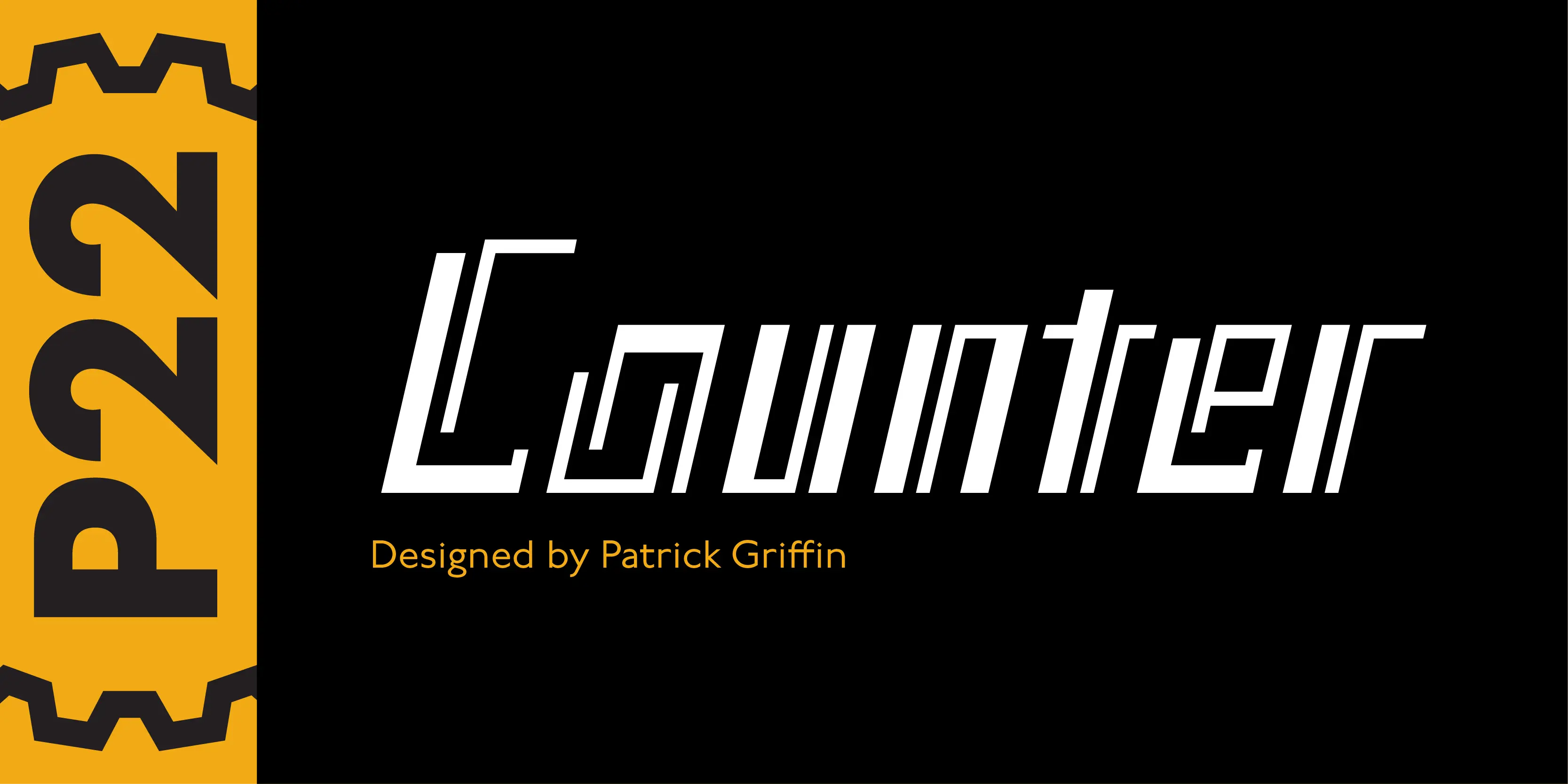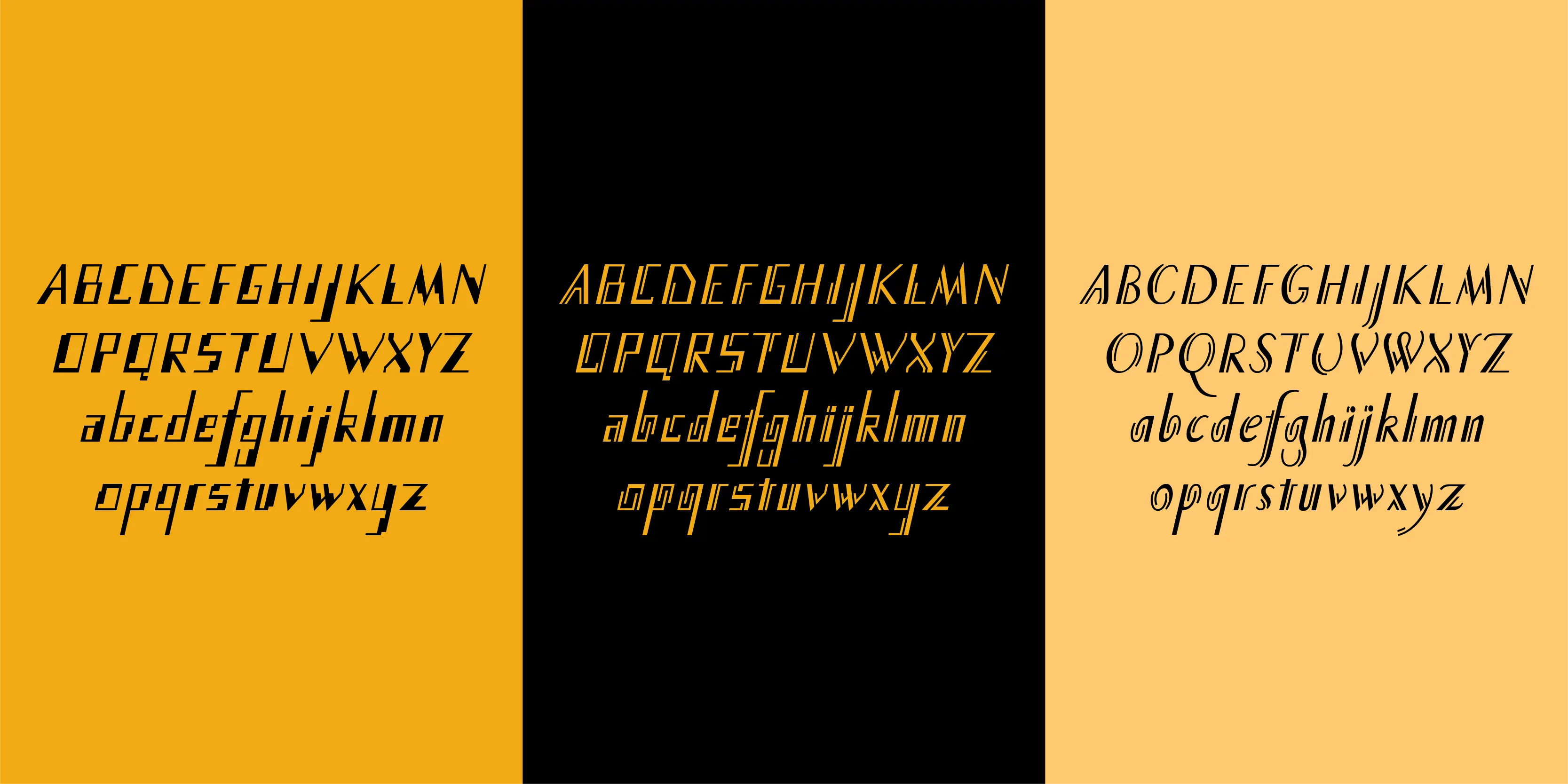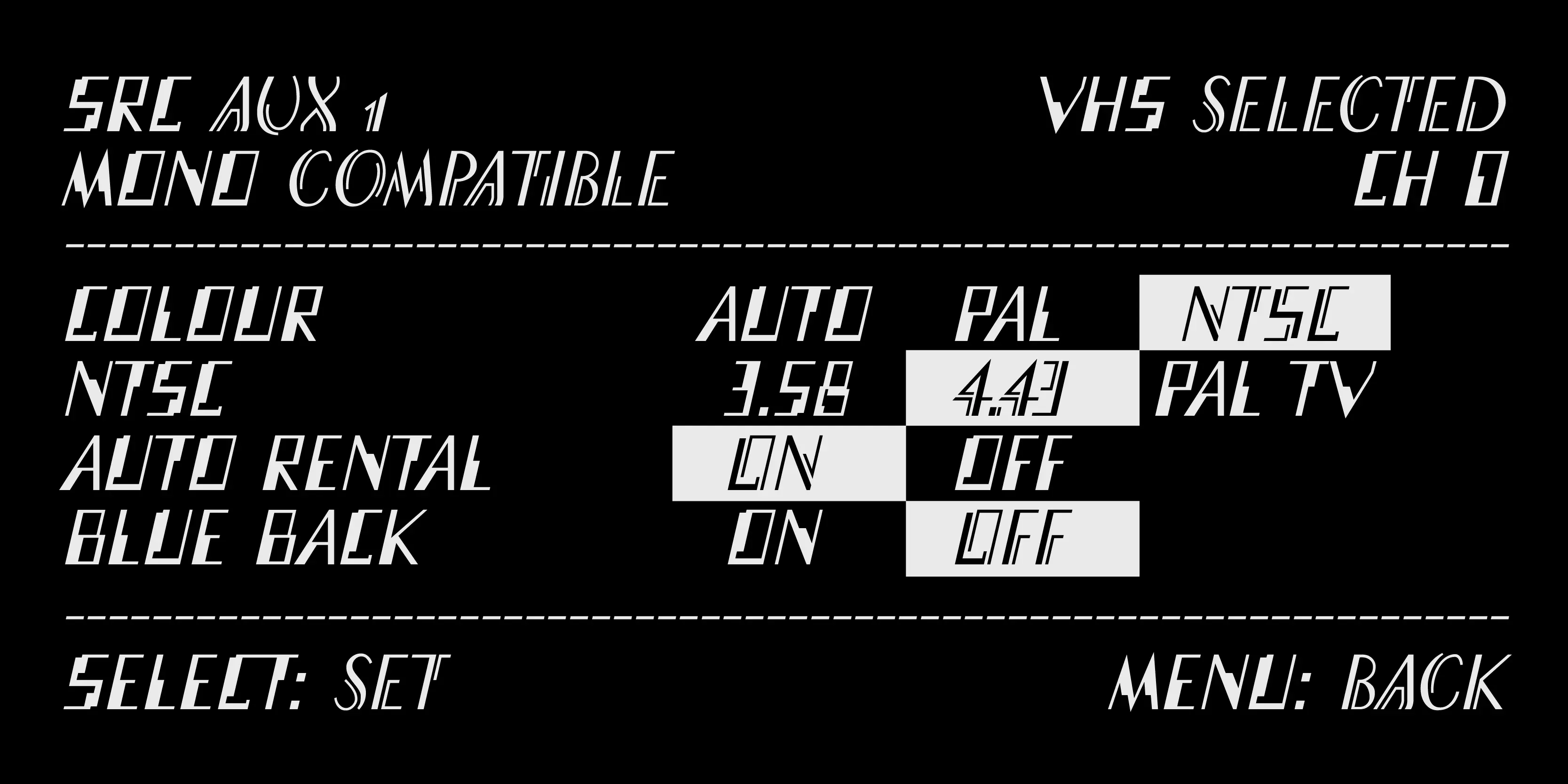
Counter Font Family
• Counter Cursive
• Counter Hack
• Counter Line
Counter
Designed by Canada Type principal Patrick Griffin, P22 Counter is a very geometric font based on parallel strokes. The Cursive and Swash Alts styles were based on the idea for an uncredited film face called Whitley, published by a little known English typesetting house in the early 1970s. Line & Hack are extrapolations of the above.
• Swashes
Swashes
Stylistic Set 1
Stylistic Set 2
Stylistic Set 3